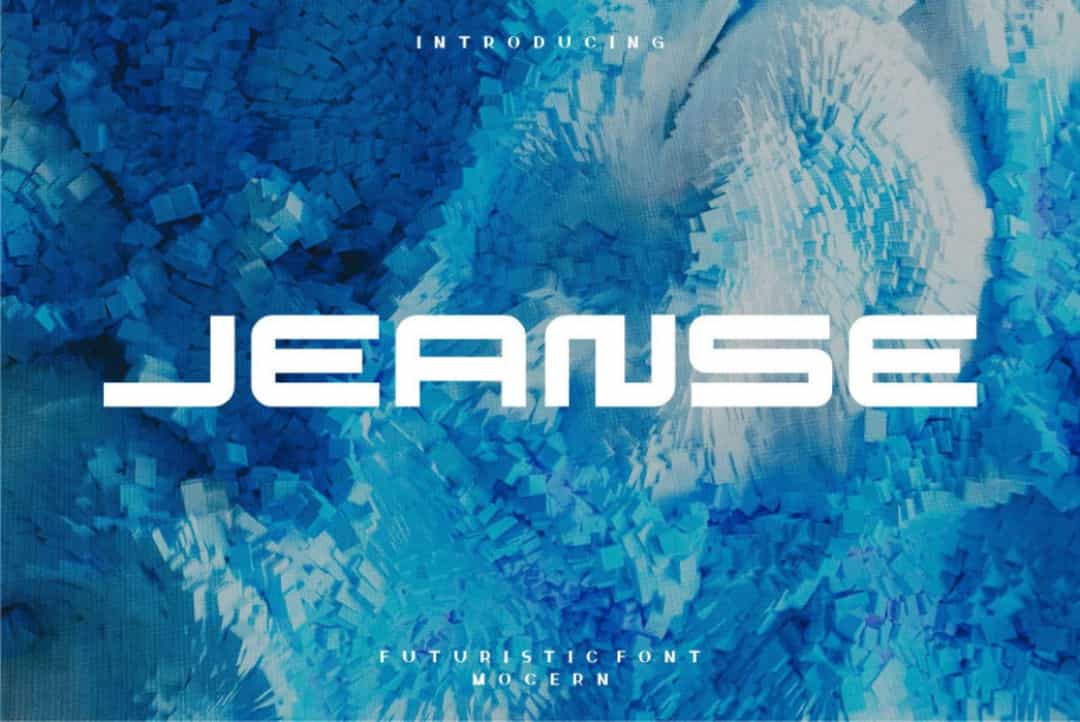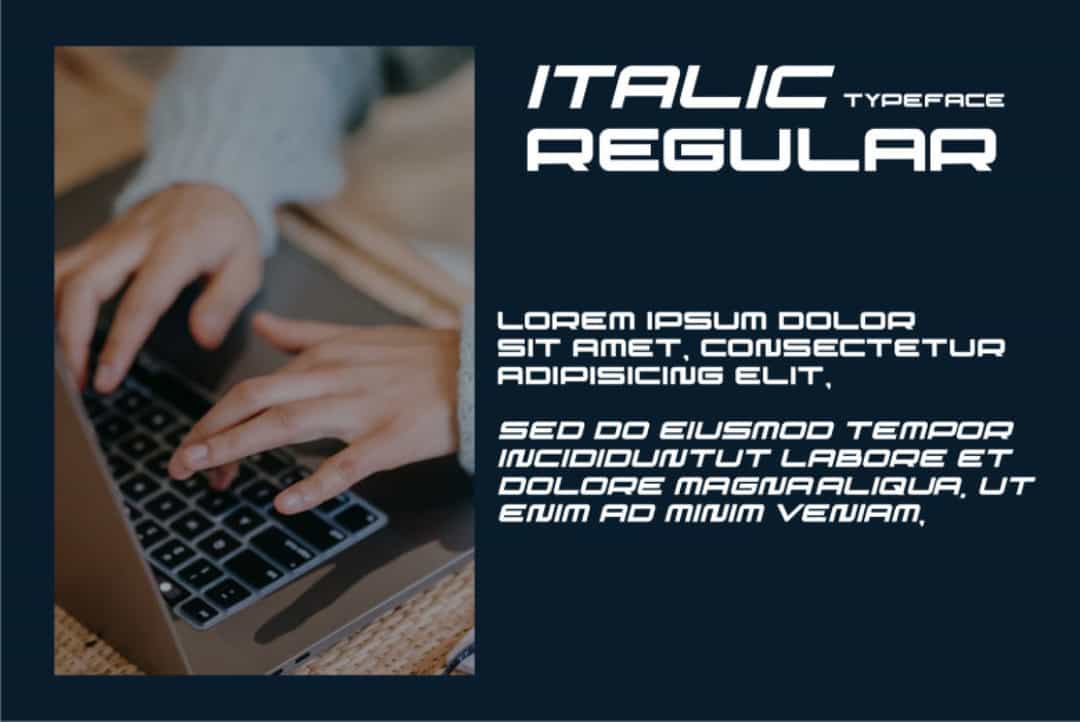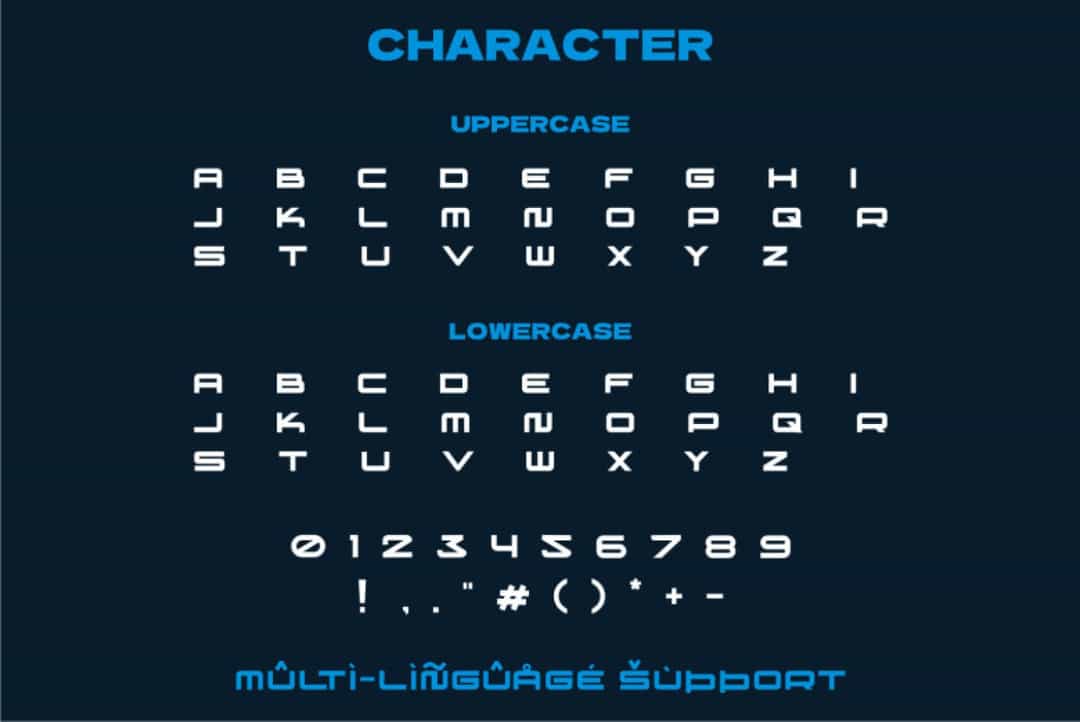
Jeanse is an eye-catching and futuristic-looking display font. Ideal for web designs and business cards, Jeanse also adds an modern edge to anything else you might need a modern touch for.